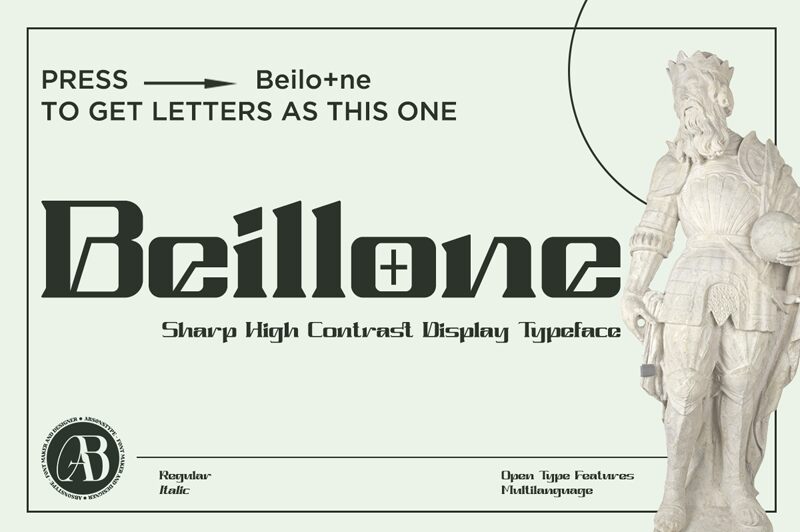
Beillone by Absonstype Studio is a bold, serif font that exudes a captivating blend of elegance and strength. Its expanded character width lends an air of sophistication, while the clean, refined lines convey a sense of timelessness. The font's masterful interplay of thick and thin strokes creates a striking visual rhythm, effortlessly drawing the eye and evoking a sense of grandeur.
The Beillone font's versatility shines through, making it an excellent choice for a wide range of design applications. Its bold and impactful presence lends itself well to headlines, titles, and branding initiatives, where it can command attention and leave a lasting impression. Additionally, the font's legibility and classic aesthetic make it a suitable option for editorial content, literary works, and formal documents, where readability and refinement are paramount.
Use plus + after a word to make a special character.
Example: Ro+ste+ro